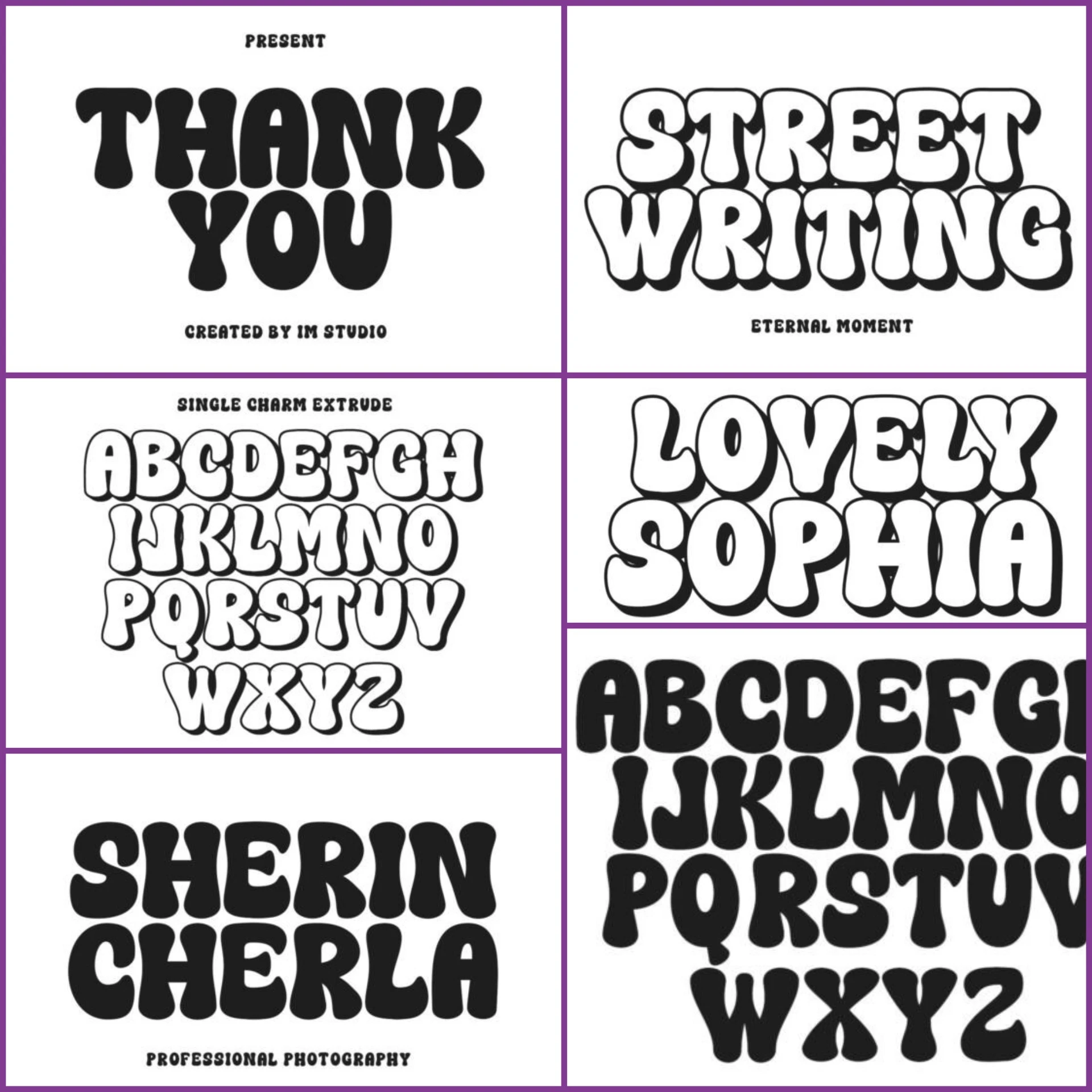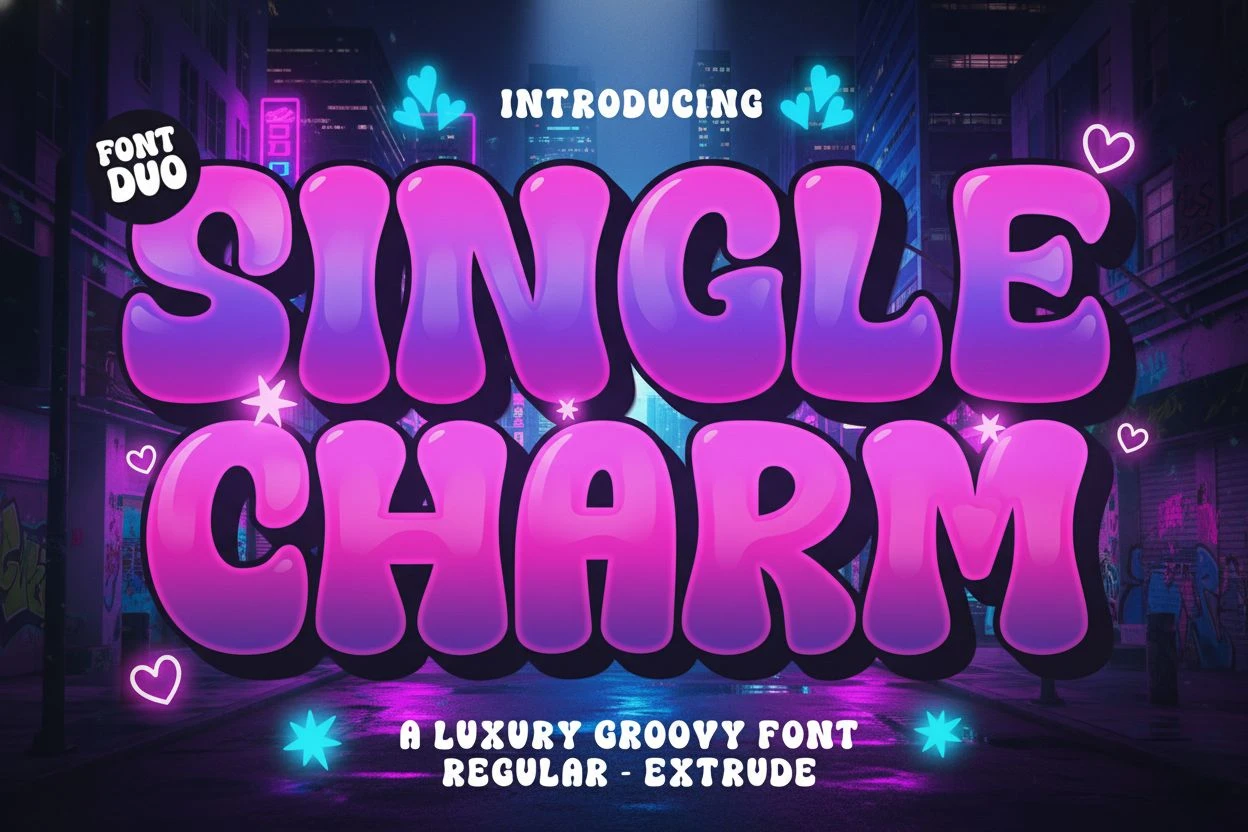
Single Charm is a bold and playful groovy graffiti font duo designed to bring energy, personality, and cartoon-style vibrance to any creative project. Featuring Regular and Extrude styles, this luxury display typeface delivers a fun retro aesthetic with thick bubbly shapes and dynamic shadows that make every word pop.
Perfect for logos, posters, comic book titles, stickers, product packaging, branding, social media graphics, and print-on-demand designs, Single Charm gives your work a unique handmade graffiti look. Its full character set—uppercase, lowercase, numbers, and punctuation—ensures full creative flexibility.
Whether you’re creating retro cartoon designs, funky Halloween graphics, street-art-inspired layouts, or bold promotional visuals, Single Charm Font adds charm, attitude, and unforgettable style. Its dimensional extruded version makes it perfect for Cricut, Procreate, Canva, and other design software.
Let your creativity shine with this vibrant groovy graffiti font duo – playful, expressive, and perfect for designers who want their work to stand out.